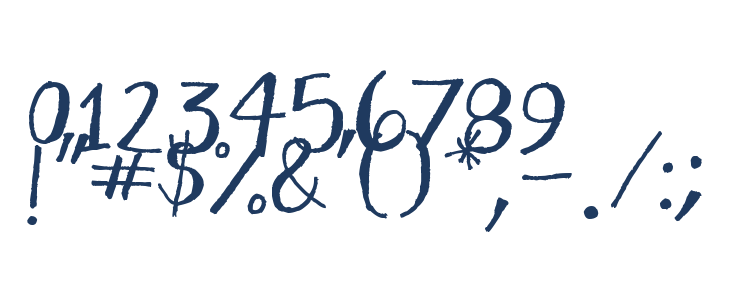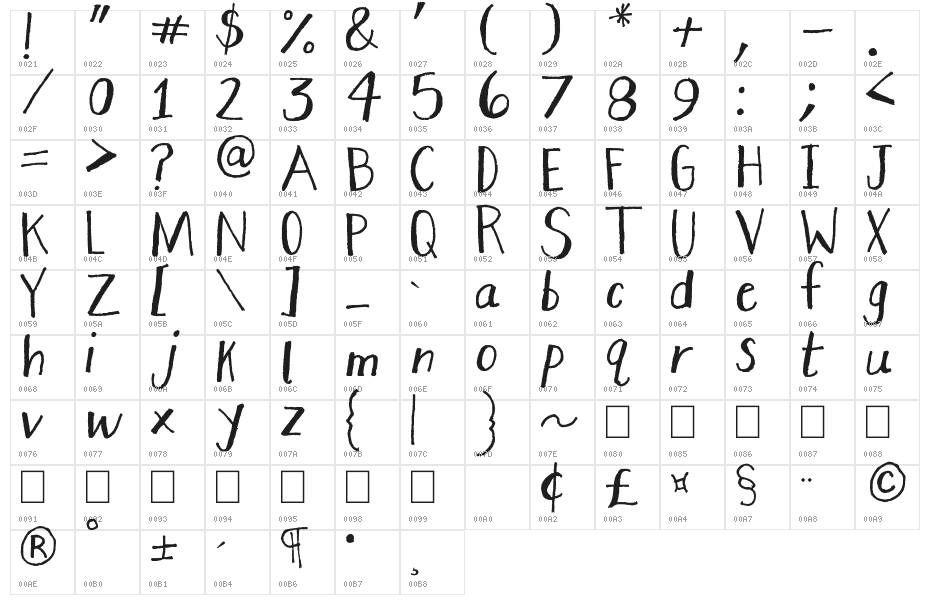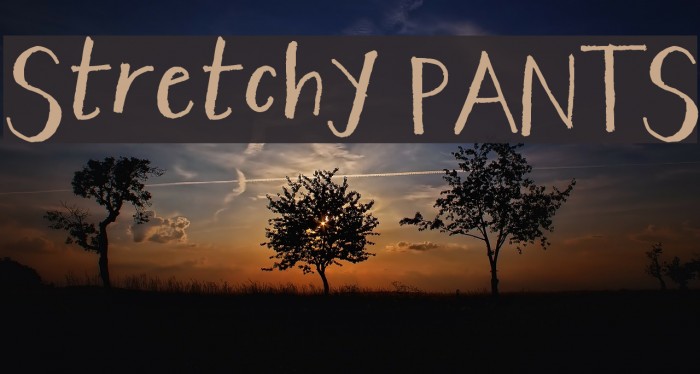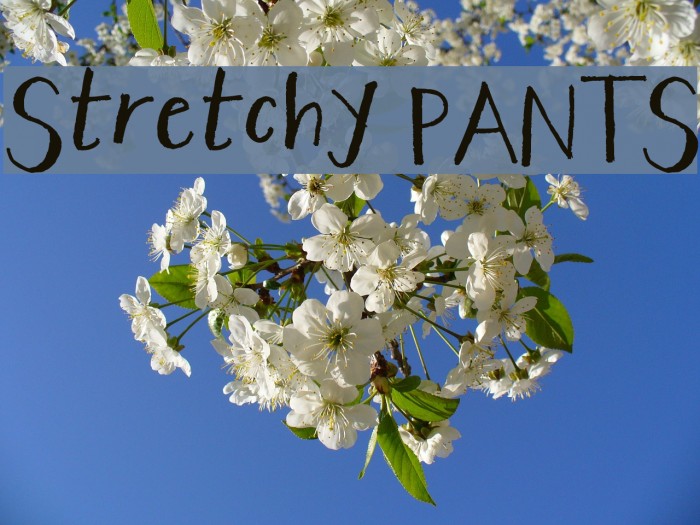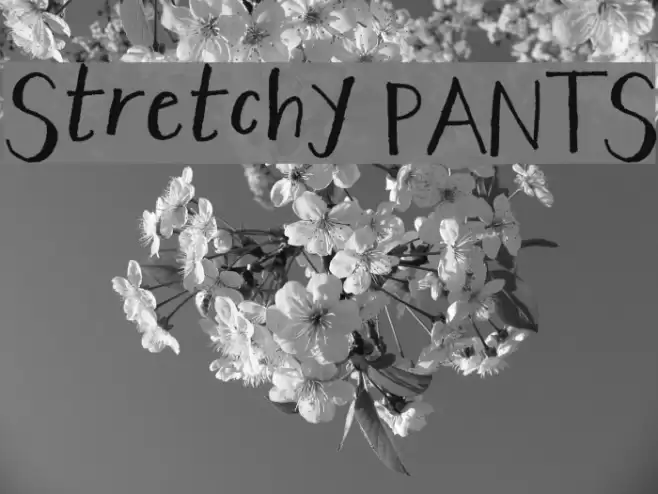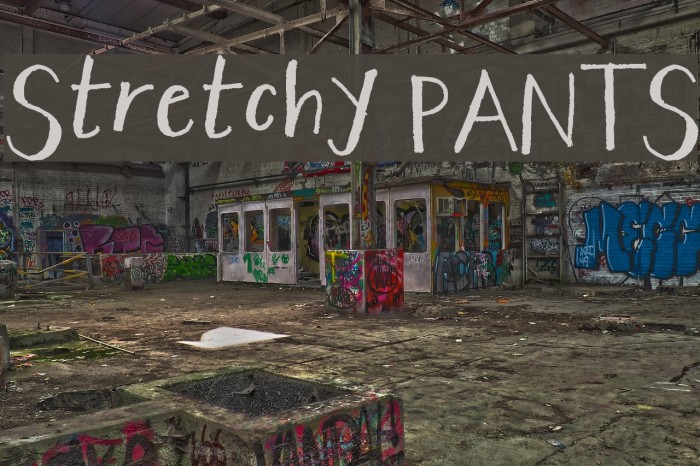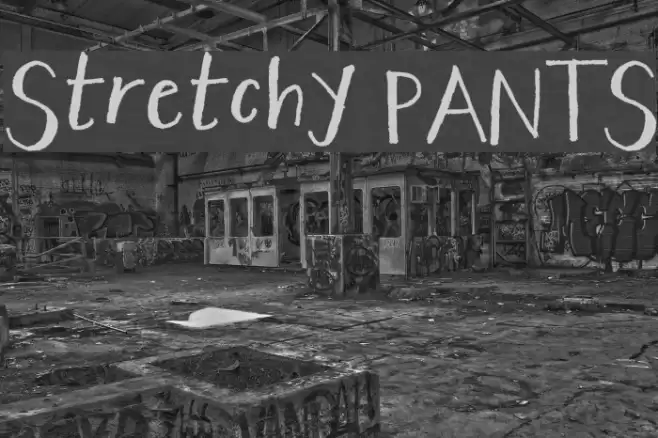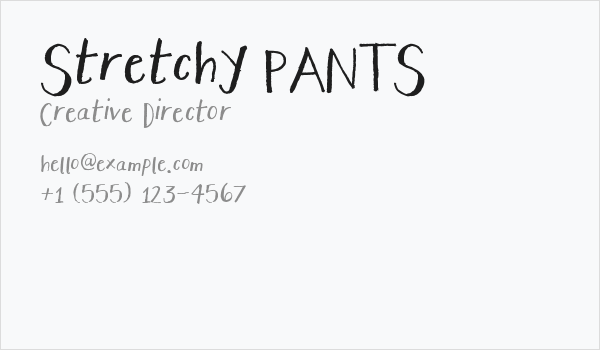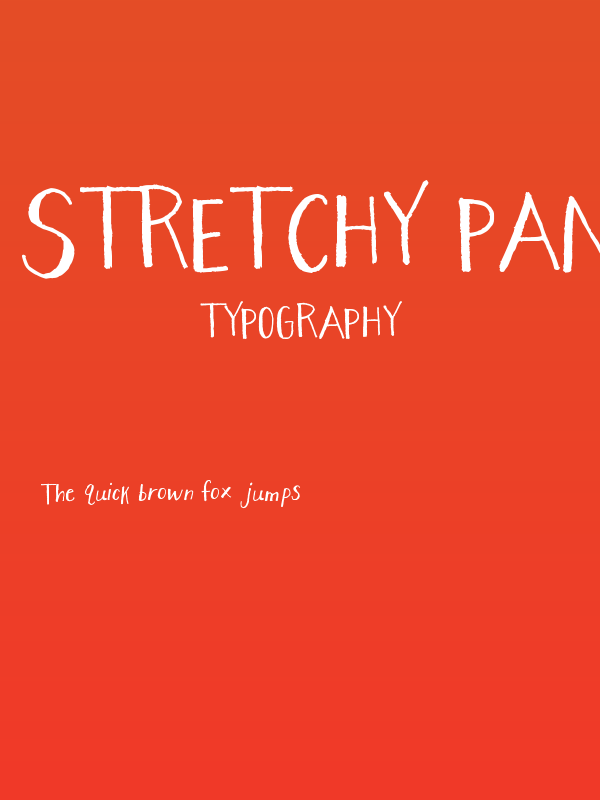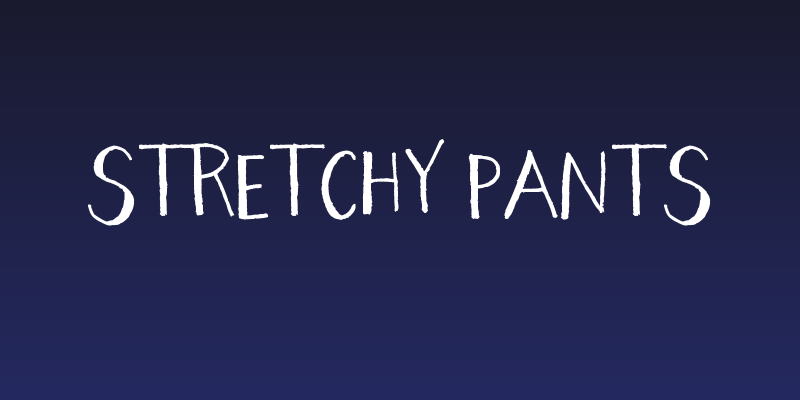
Stretchy PANTS Font
Stretchy PANTS Description
This font features a playful and casual handwritten style, characterized by its uneven strokes and slightly irregular letterforms. The uppercase letters are tall and narrow, while the lowercase letters maintain a consistent height, adding to the font's informal charm. The numbers and special characters follow the same whimsical design, making the font suitable for creative and artistic projects. The strokes vary in thickness, providing a dynamic and lively appearance. This font is perfect for projects that require a personal touch, such as invitations, greeting cards, or artistic posters.
| Overall Style | Casual, Artistic |
| Use Case | Headlines, Creative projects |
| Proposed Projects | Ideal for invitations, greeting cards, artistic posters, and creative projects. |